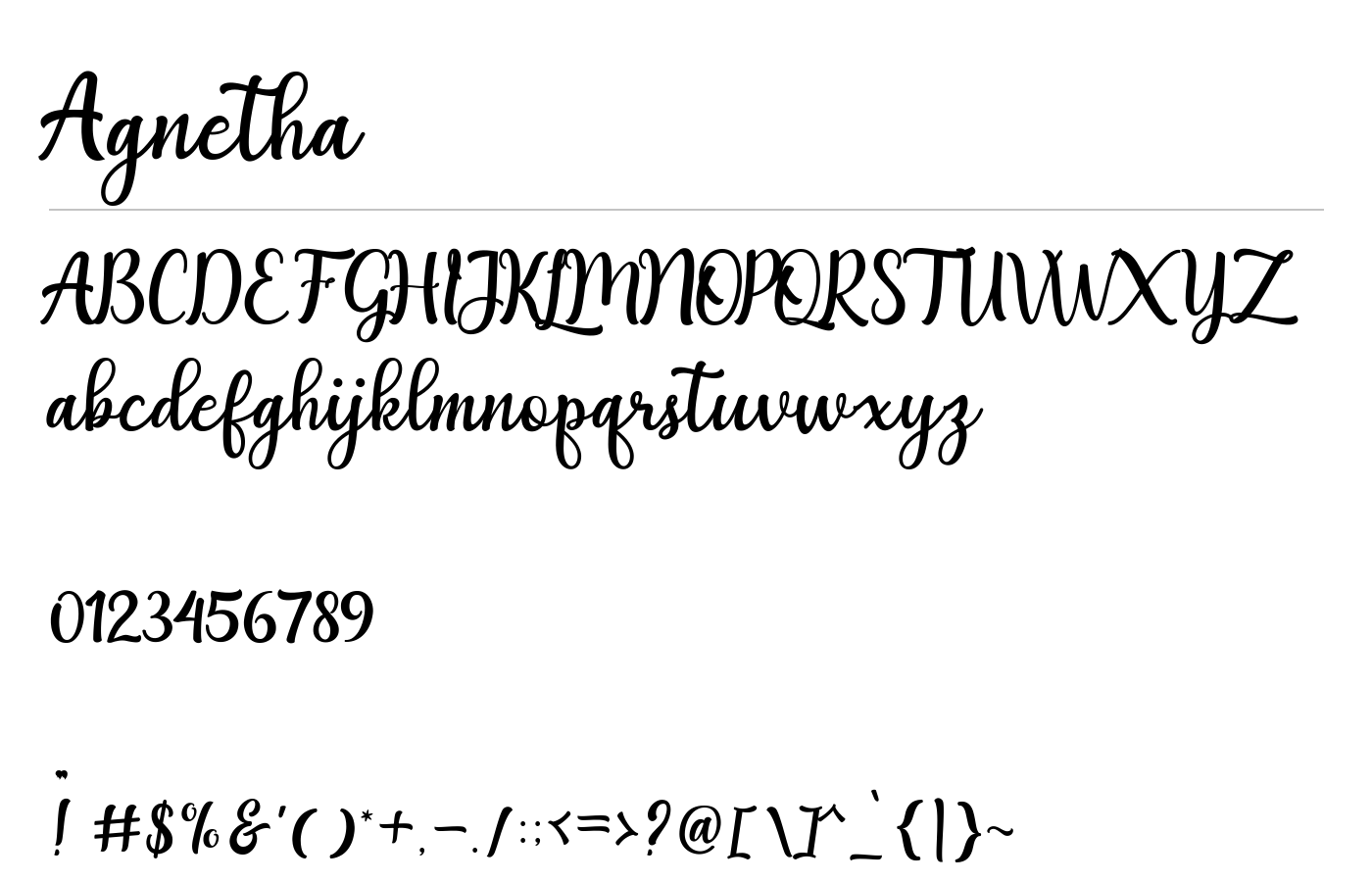
Agnetha is a graceful script font with a lively, handwritten feel characterized by smooth, flowing strokes and elegant curves. Its medium weight and moderate contrast create a balanced, readable style perfect for adding a personal, artistic touch to invitations, branding, and creative projects. This font conveys warmth and charm, making it ideal for designs that seek a friendly yet refined atmosphere.
Agnetha Font
About Agnetha Font
| Designer | Uloel Design |